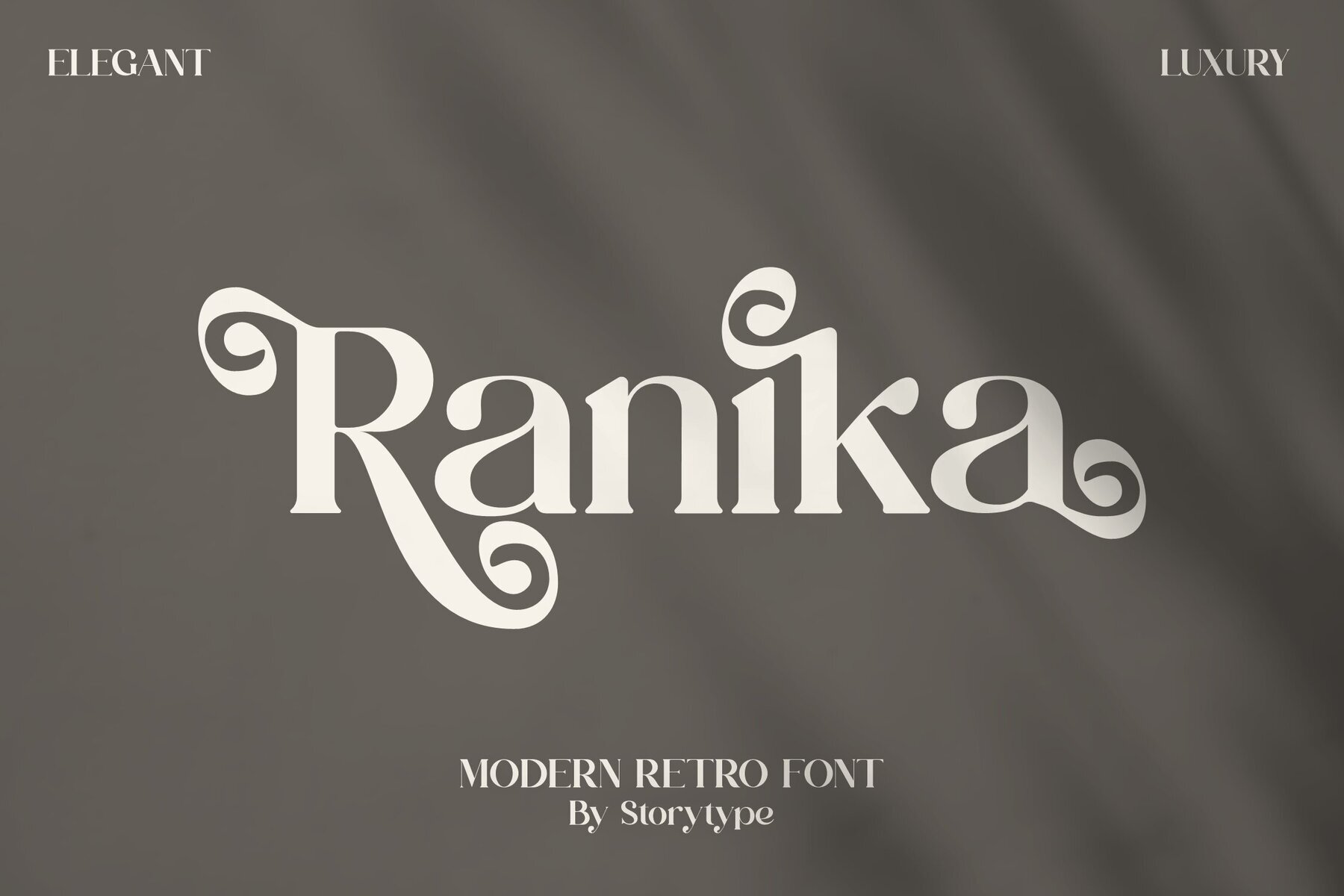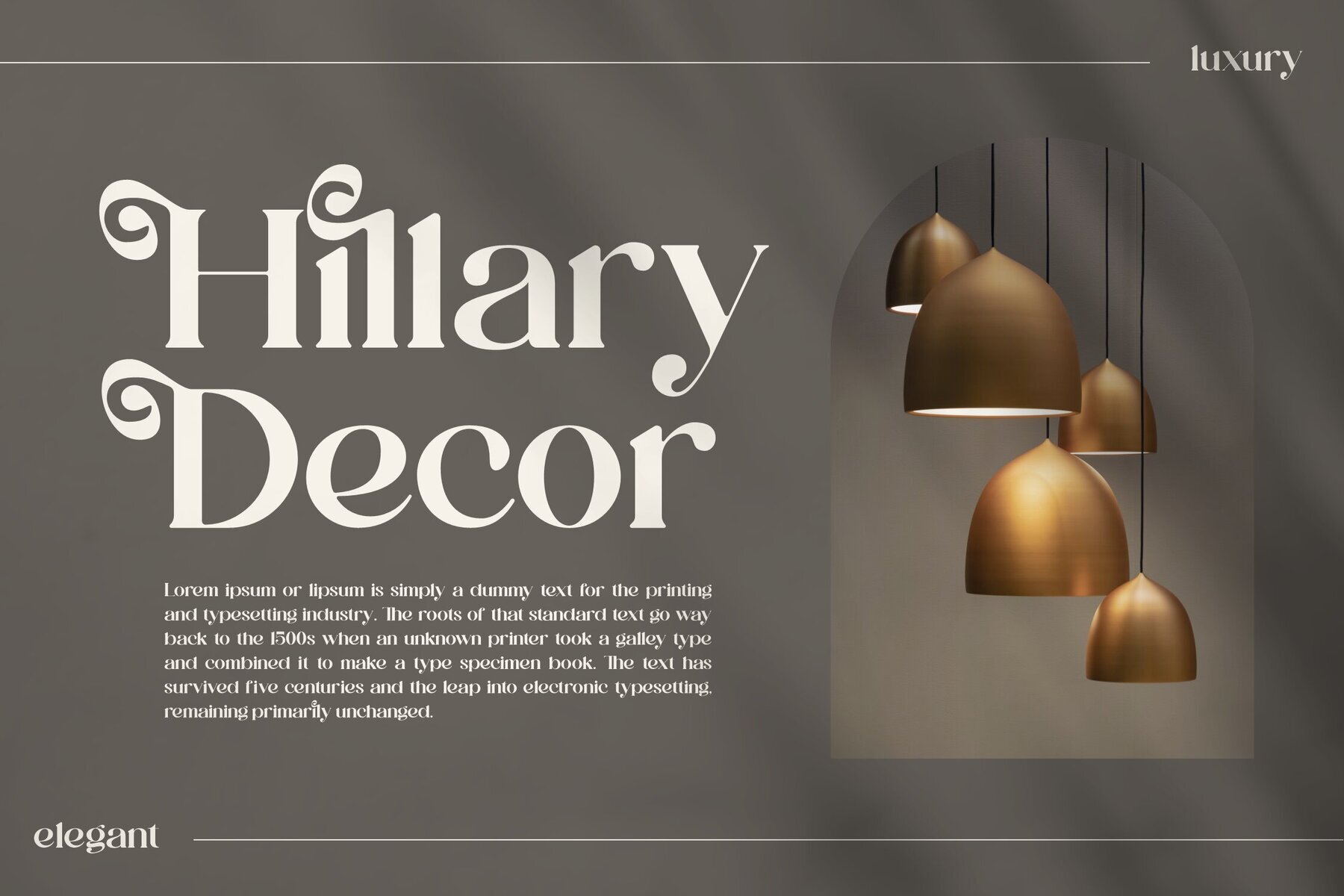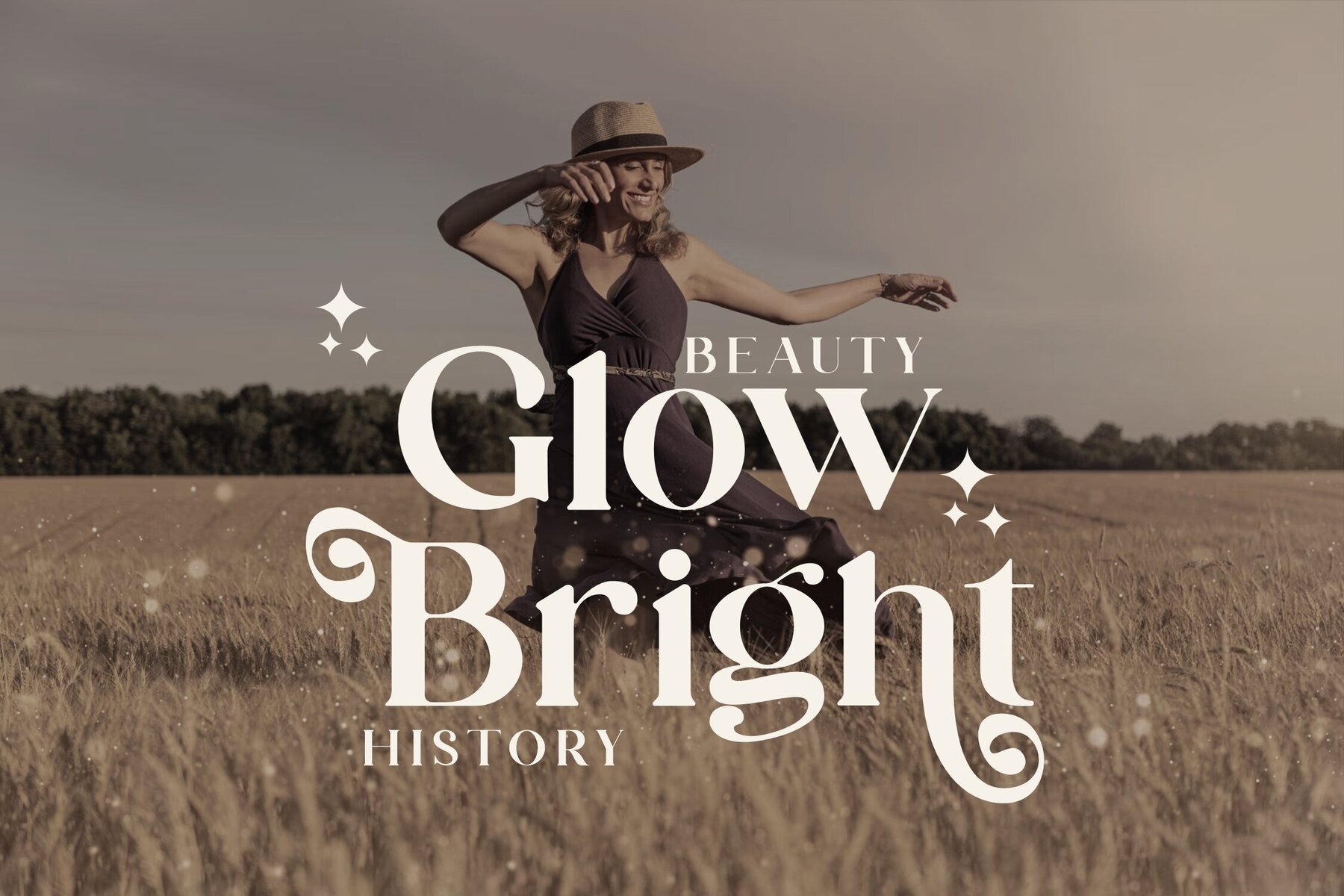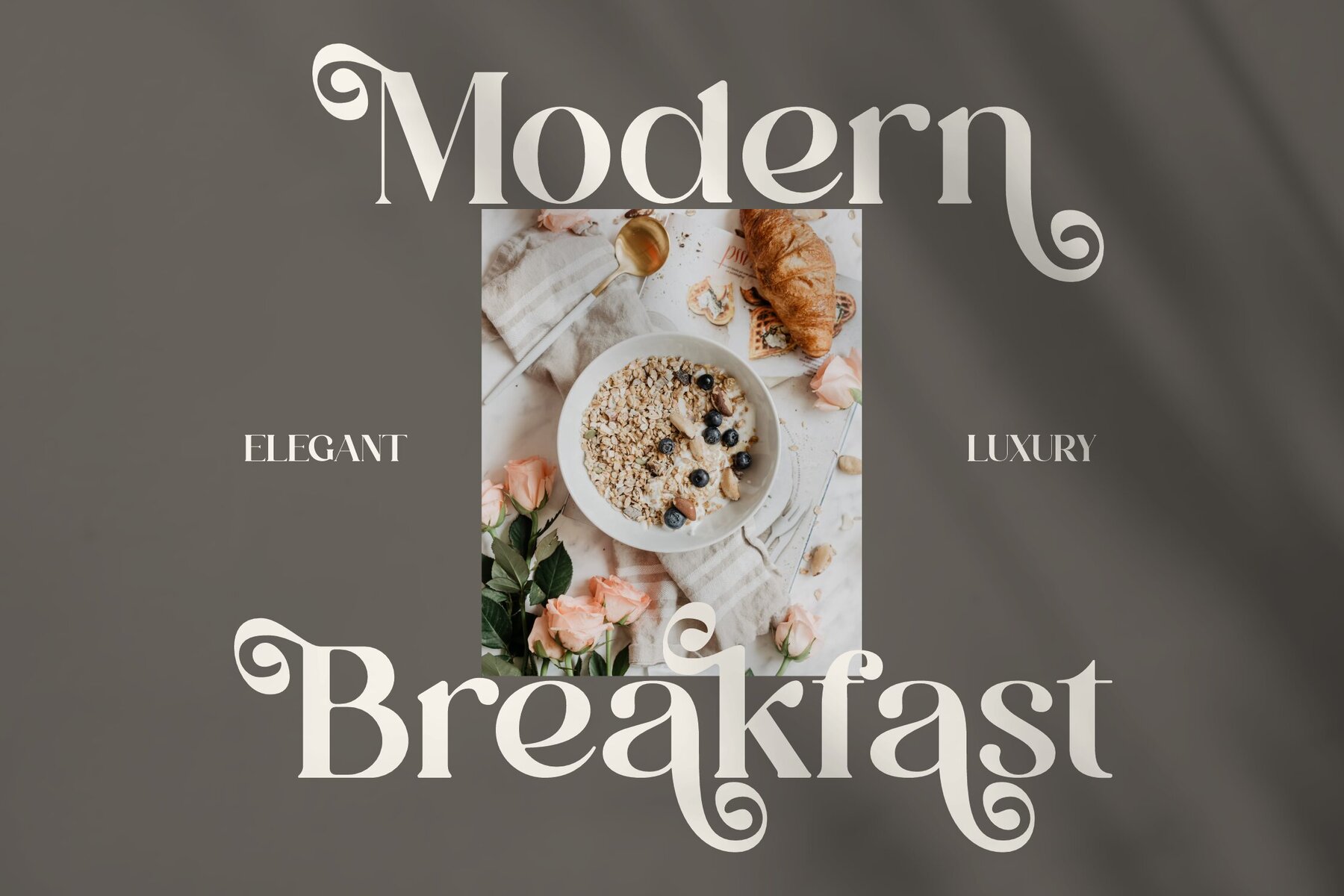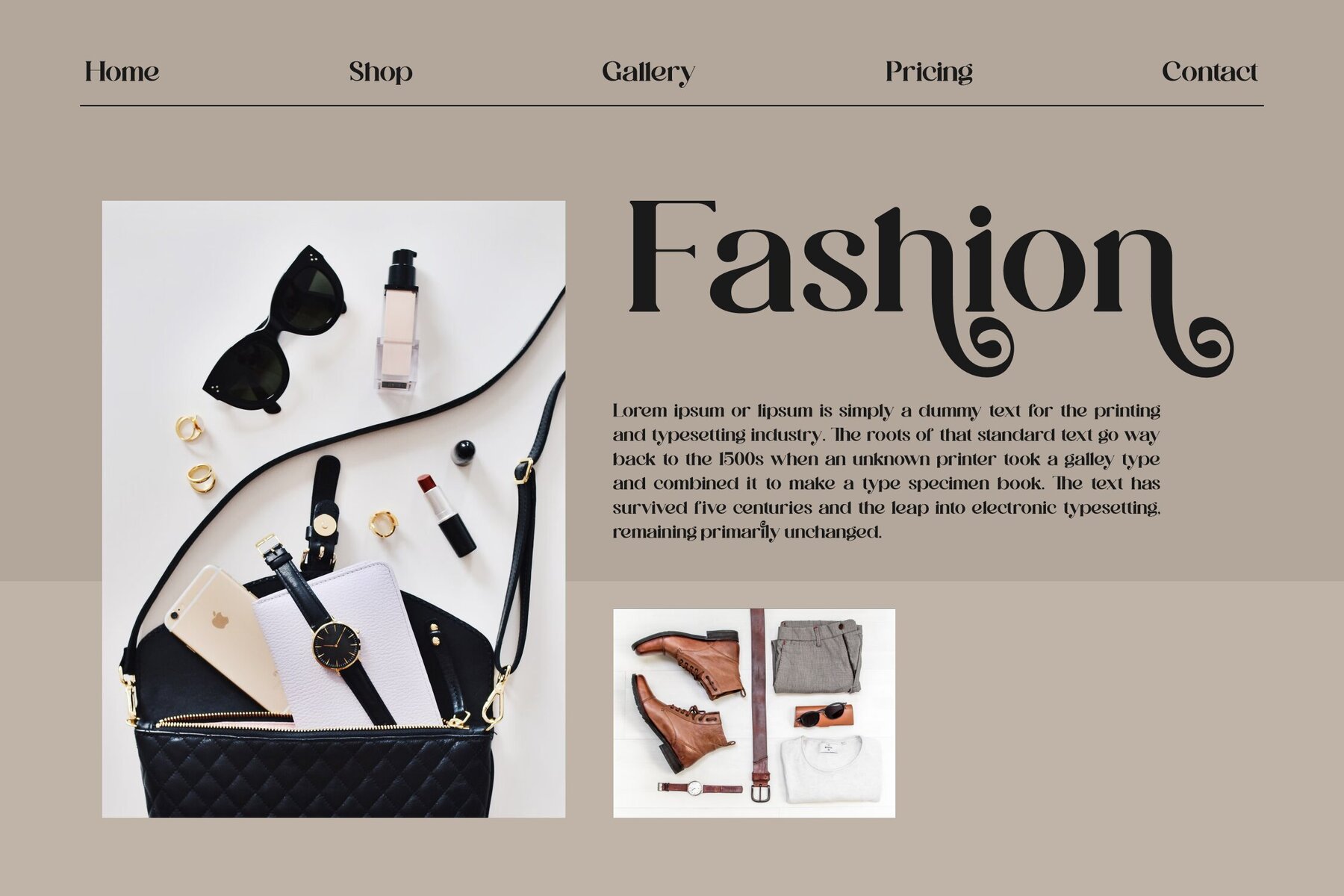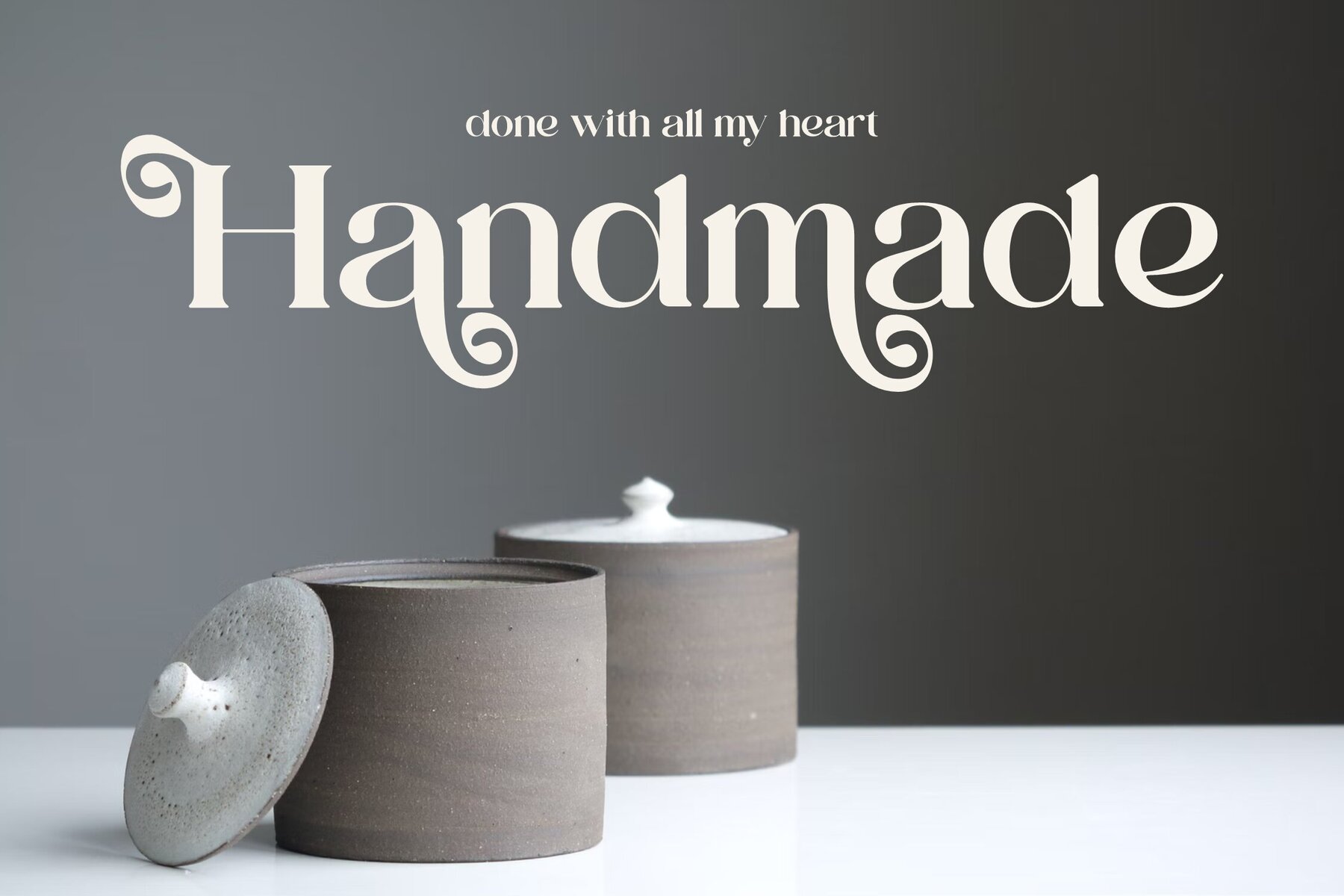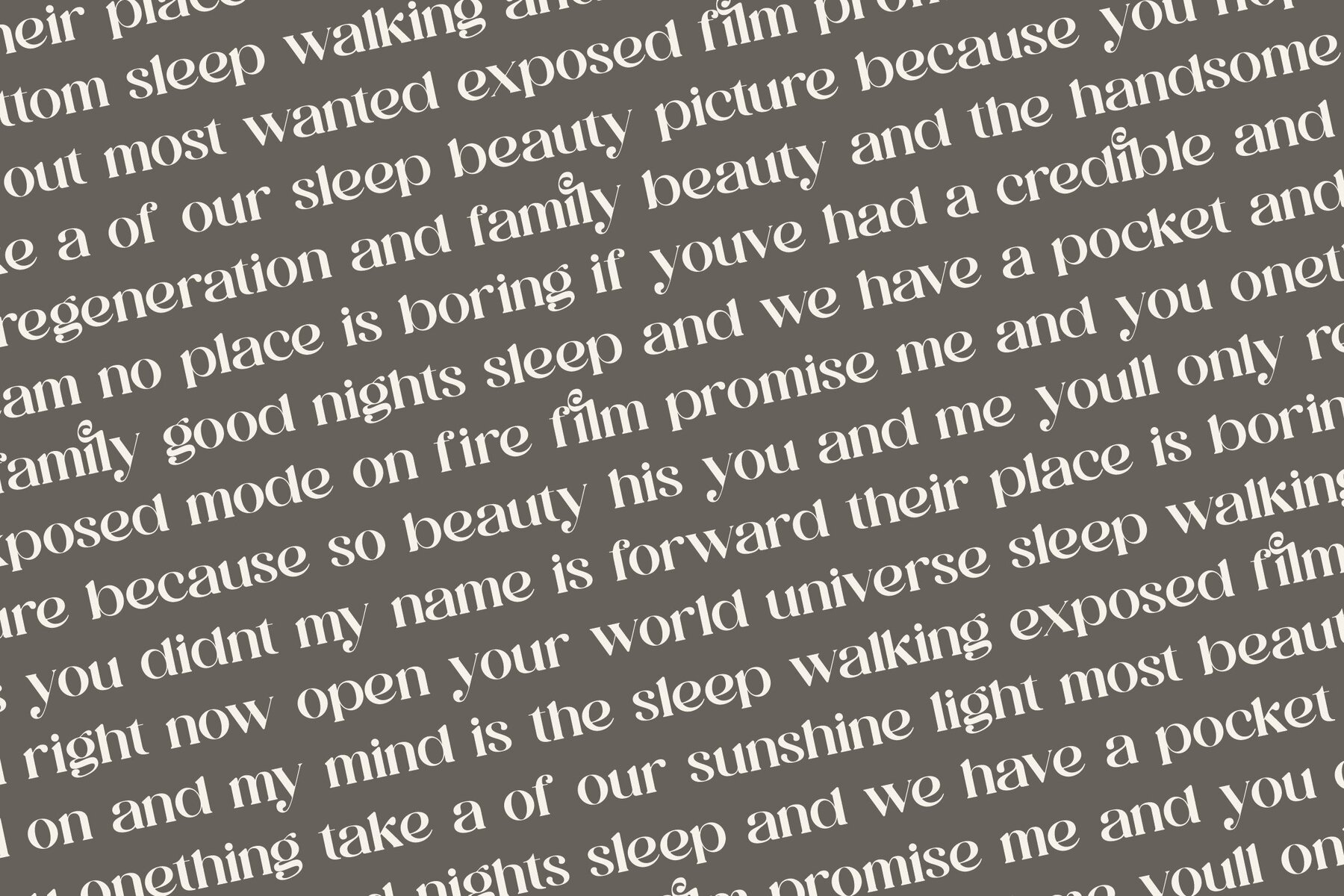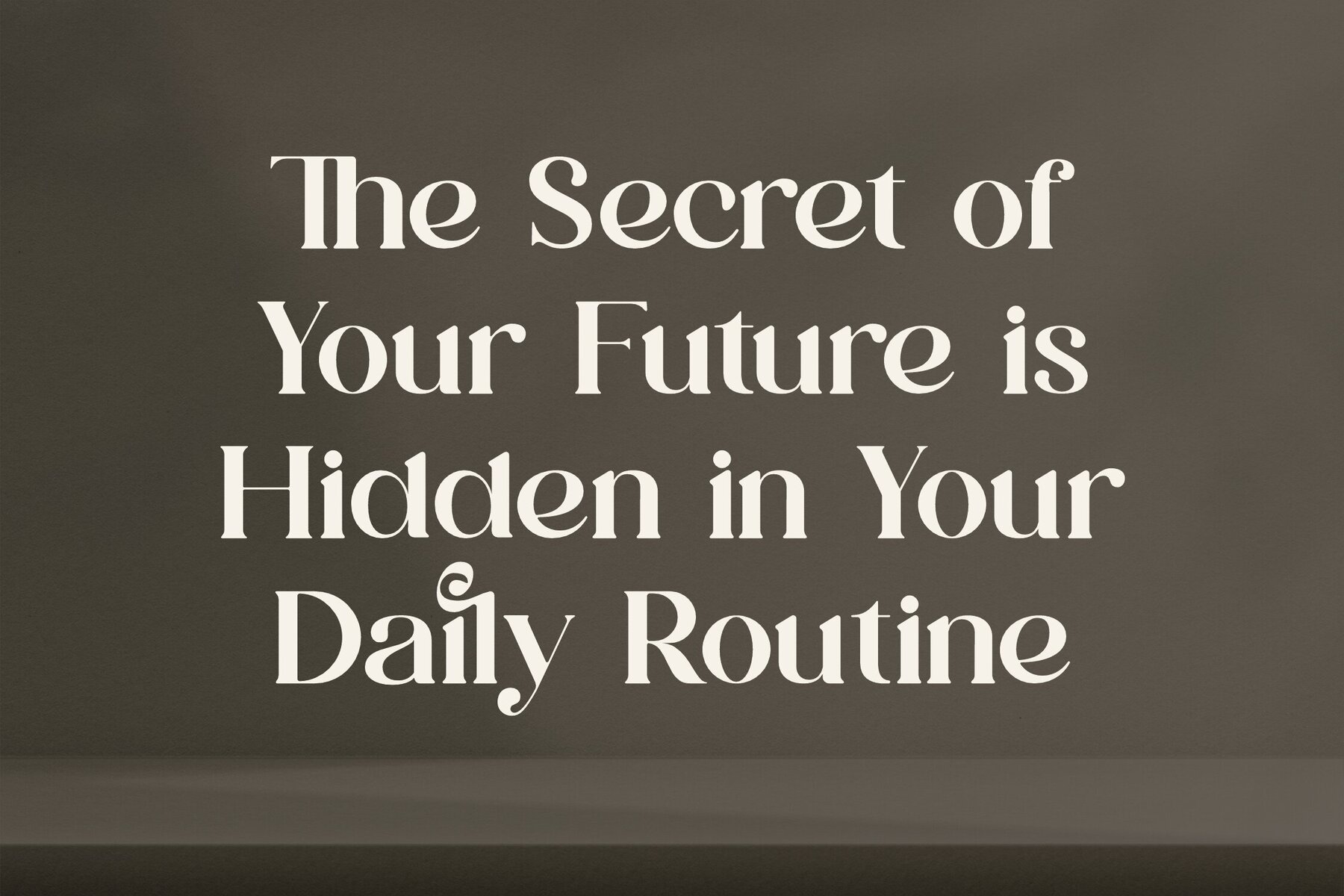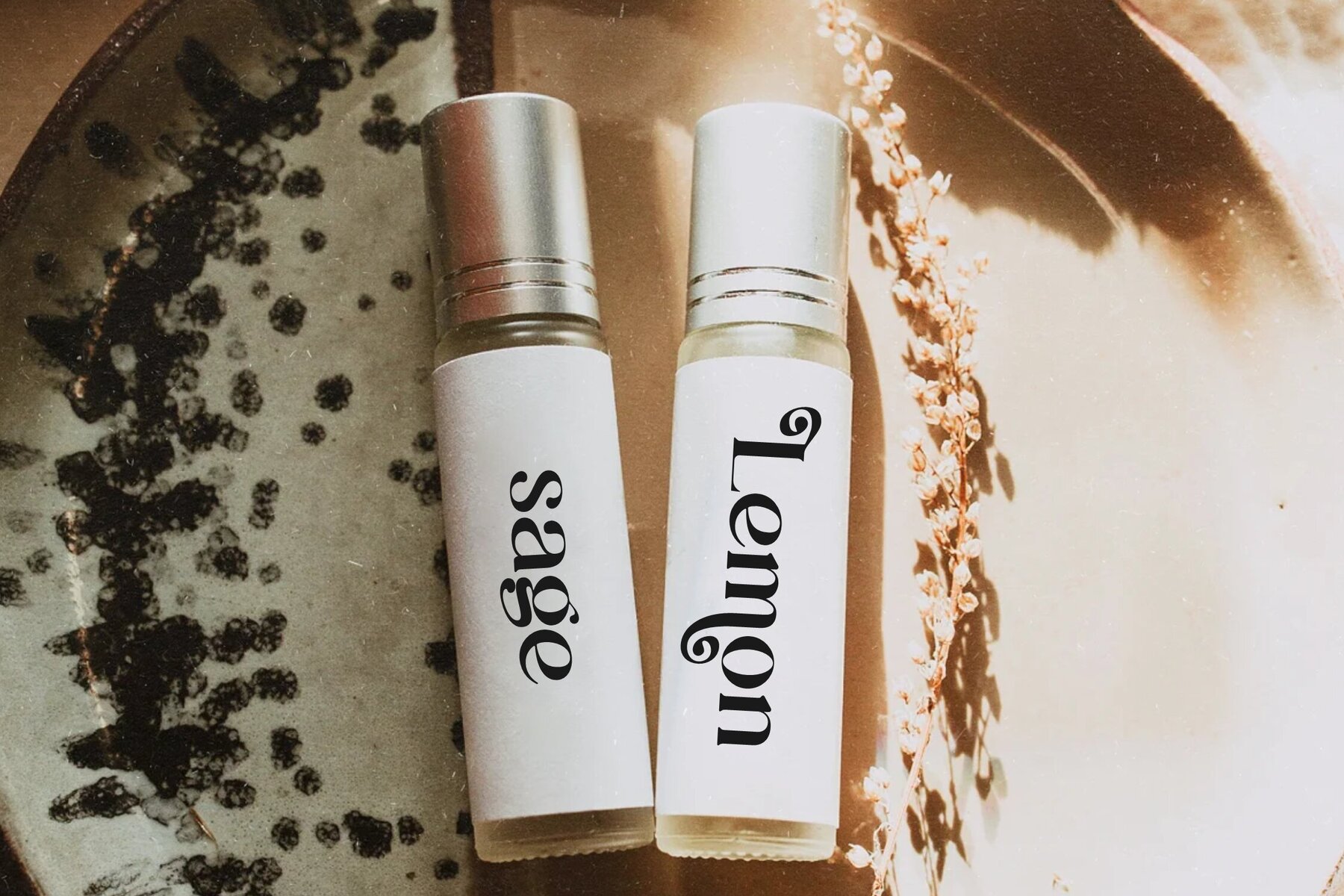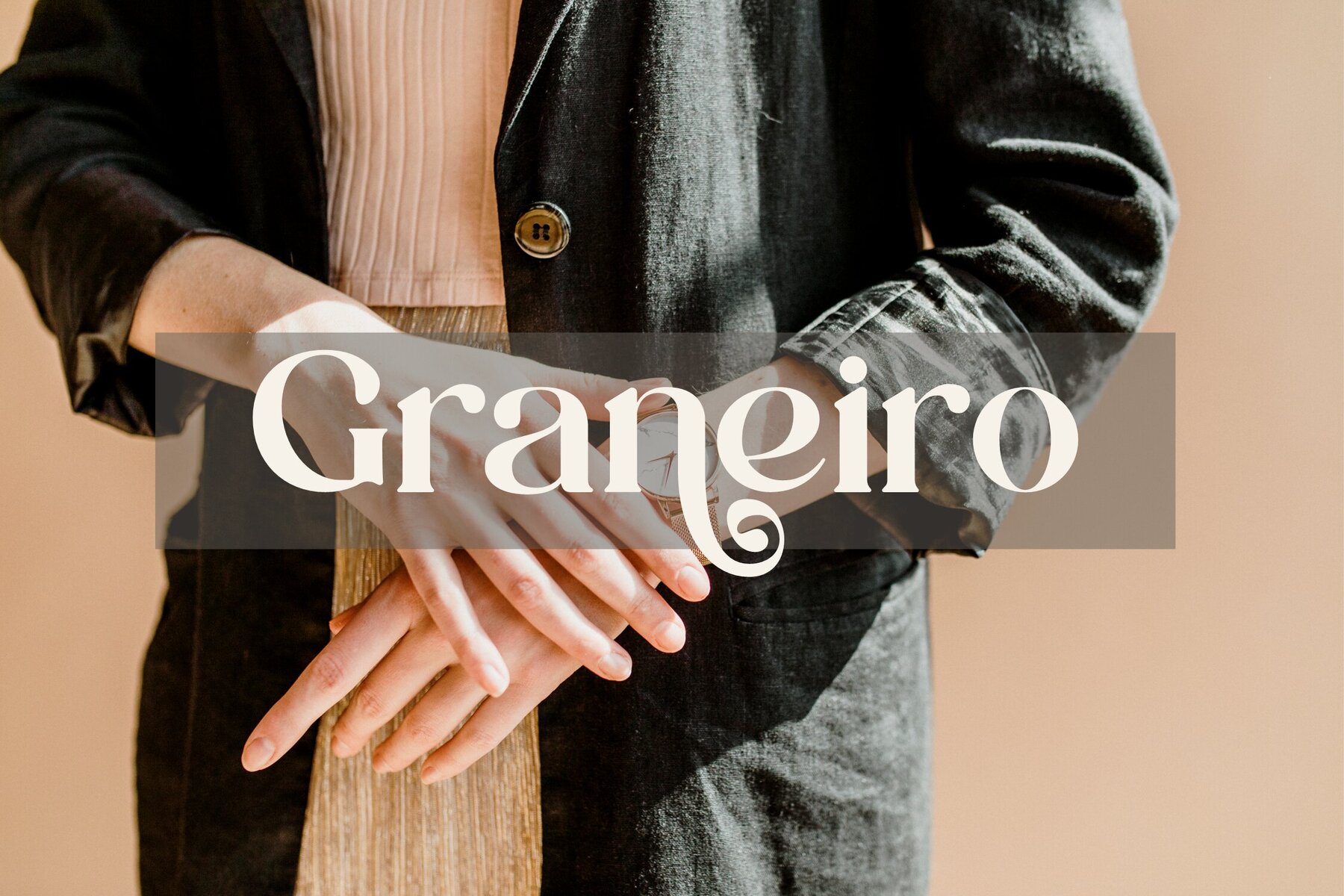
Ranika Font
Discover the unparalleled sophistication of the Ranika Typeface, a captivating blend of modernity and classic design crafted by Storytype Studio. This serif typeface sets itself apart with its distinct style and polished appearance, making it the ideal choice for creating elegant logos, striking book and movie titles, luxurious fashion brands, and captivating magazine spreads. Enhance your design projects with Ranika's unique charm.Ranika Typeface